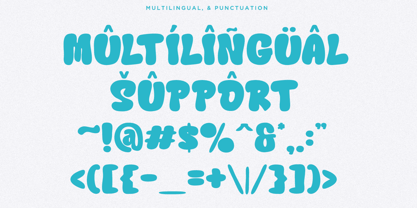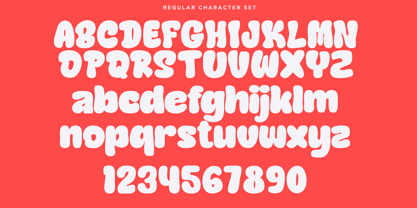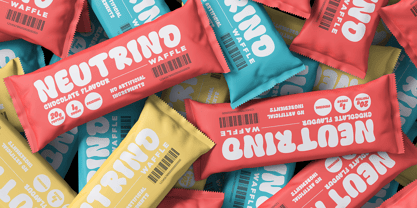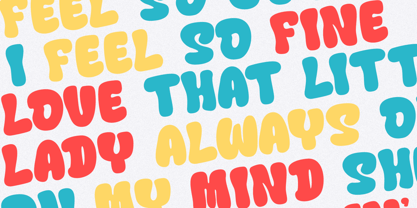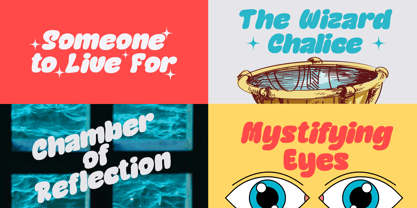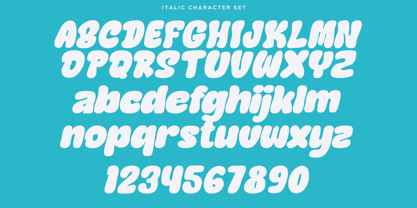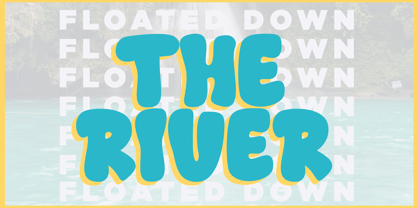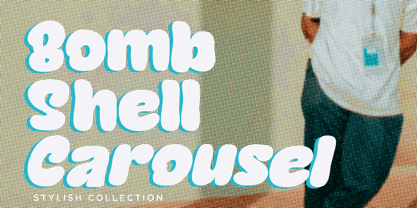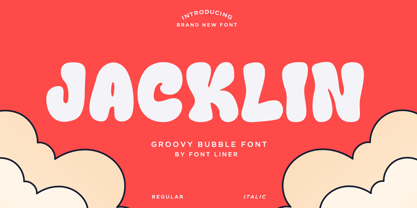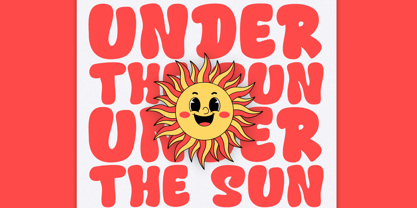
Jacklin
by Font Liner
The Jacklin Font Family was designed by Ghina Luthfiarieska and published by Font Liner. Jacklin contains 2 styles and family package options. More about this family
Jacklin is a groovy font inspired by the classic bubble style, featuring rounded edges and soft curves that add both a playful and sophisticated touch to any design. With its fun yet elegant vibe, Jacklin is perfect for posters, branding, packaging, and bold headlines. This versatile font family comes with Regular and Italic styles, includes multilingual support, and makes every project stand out effortlessly. File Included : - Jacklin Regular - Jacklin Italic - Multilingual Support Thanks, Have a wonderful day
Designers: Ghina Luthfiarieska
Foundry: Font Liner